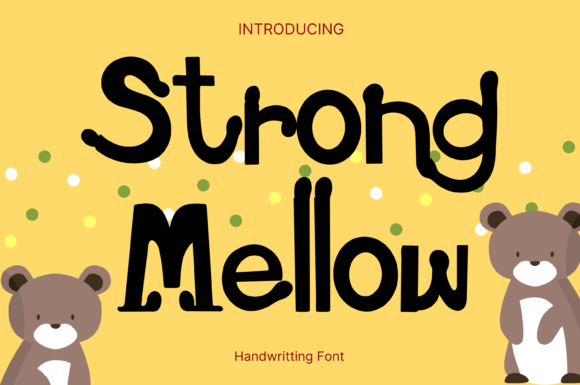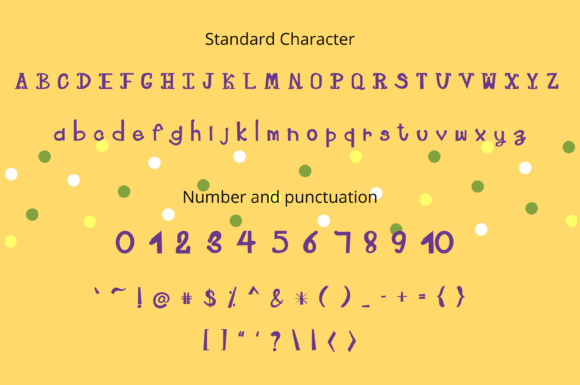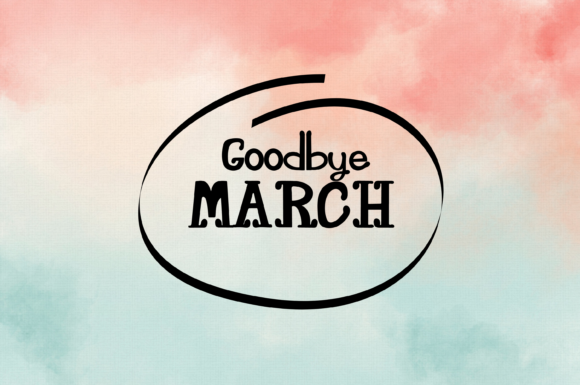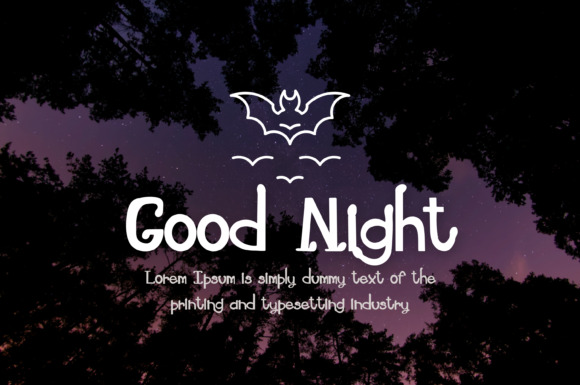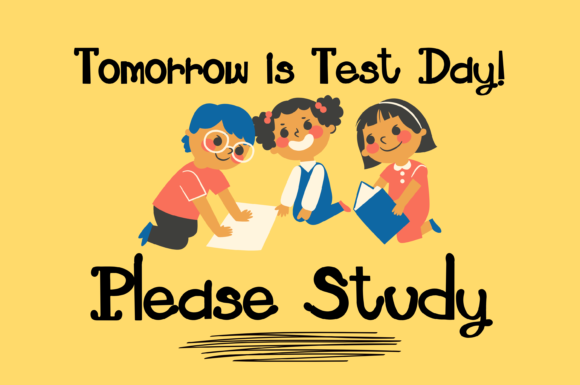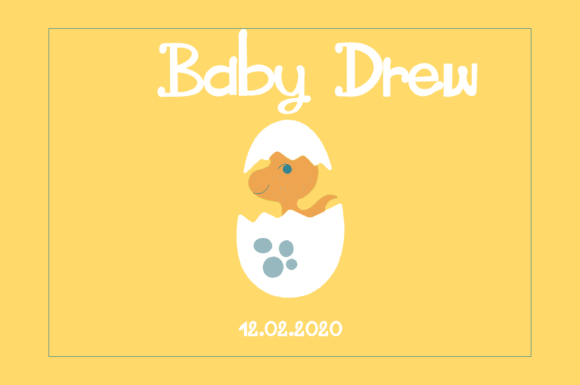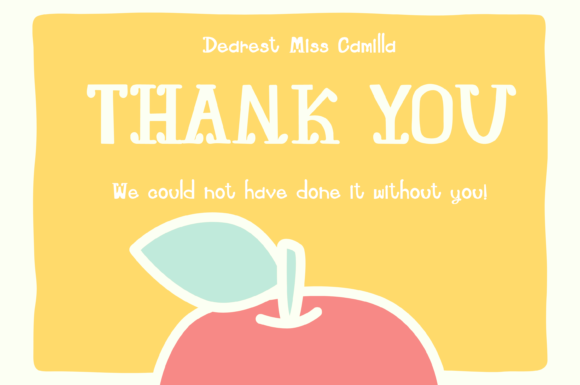
Strong Mellow Font
About Strong Mellow Font
Introducing “Strong Mellow,” a whimsical and clean handwritten font designed to add a touch of charm and creativity to your projects. This font, with its playful and distinctive style, easily complements a wide range of design endeavors, making your creative ideas stand out with a unique flair.
Strong Mellow’s whimsical charm adds a delightful touch to any project it graces. Its clean and legible handwritten script makes it versatile, allowing it to seamlessly integrate into various contexts. Whether you’re working on blog posts, logos, branding, ads, invitations, greeting cards, planners, photo albums, decorations, or any other creative endeavor, Strong Mellow becomes the perfect choice to infuse a sense of whimsy and personality.
Picture Strong Mellow enhancing your blog posts, giving them a playful and approachable vibe. Envision it becoming the signature element in your branding projects, adding a touch of creativity and uniqueness. The font’s clean design ensures readability while maintaining a whimsical and handwritten feel, making it suitable for a wide array of applications.
In essence, Strong Mellow is more than just a font; it’s a creative tool that elevates your projects and makes them stand out. Its whimsical and clean handwritten style is an invitation to add a playful touch to your ideas and notice how they come to life with a distinct charm. Choose Strong Mellow to bring a delightful and creative vibe to your designs, making them uniquely yours in the vast landscape of creative expression.